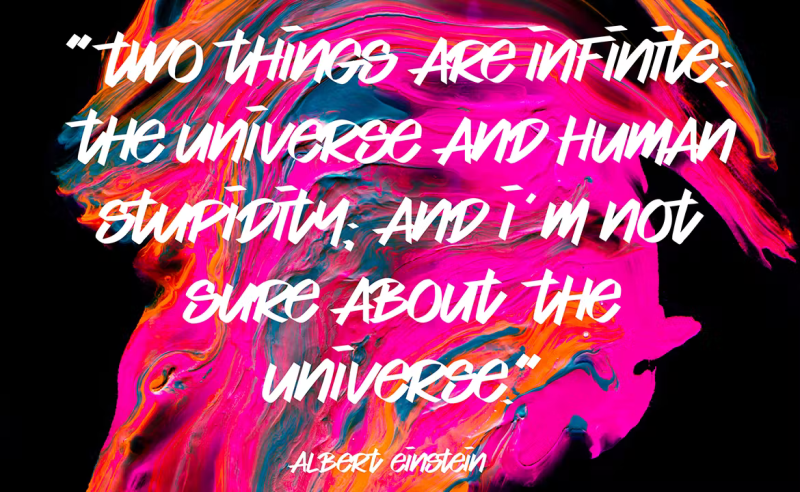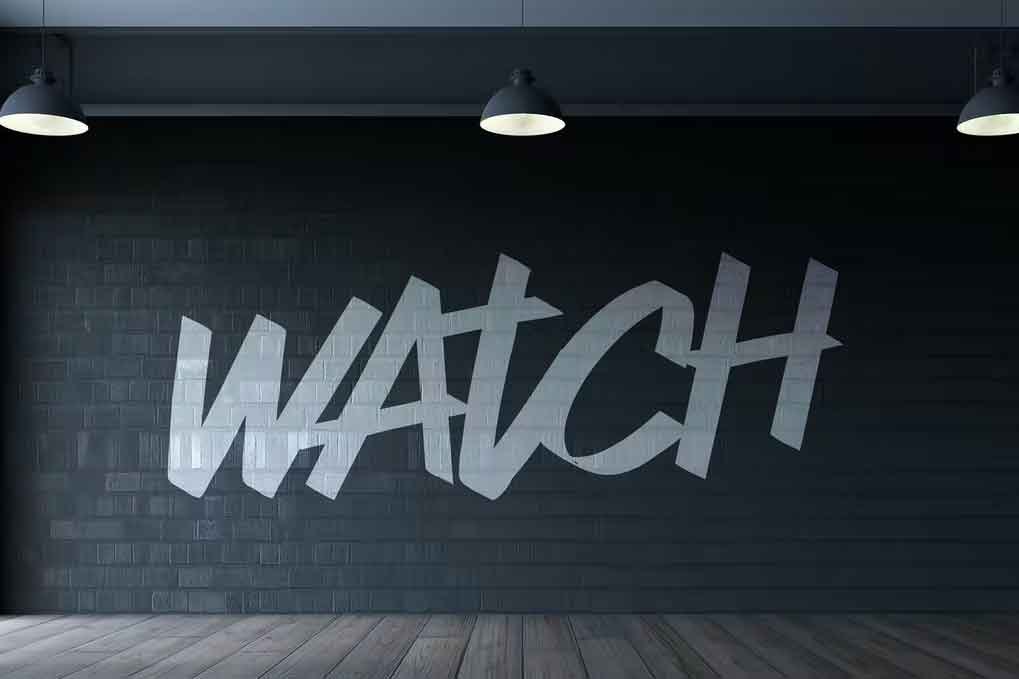
Watch Font
Wallsmith is a font that inspired by the marker typeface and grafiti style. Suitable for headline, poster design, t-shirt cd cover album or something that need grafiti s…
Wallsmith is a font that inspired by the marker typeface and grafiti style. Suitable for headline, poster design, t-shirt cd cover album or something that need grafiti style.
Where Watch Font works best
Watch Font brings a personal, handwritten warmth to invitations, menus and place cards.
Craft brands — coffee, cosmetics, bakery — use scripts like Watch Font for signature-style logos and labels.
Pair Watch Font with a plain sans for quotes, stories and Pinterest pins that feel handmade.
What is Watch Font good for?
Watch Font is a Script And Handwritten typeface tagged Handwritten, Poster, Script, Script And Handwritten. It works well for headlines, logos, posters, social media graphics and branding projects that need a distinctive script and handwritten look.